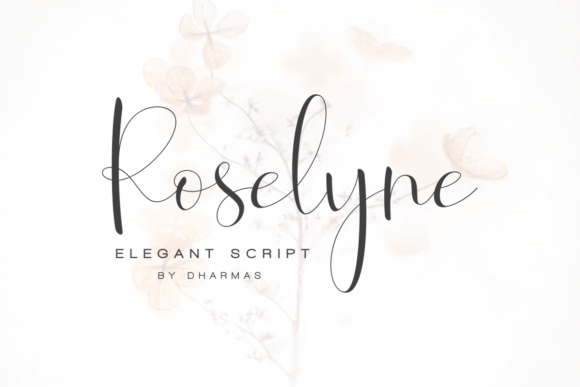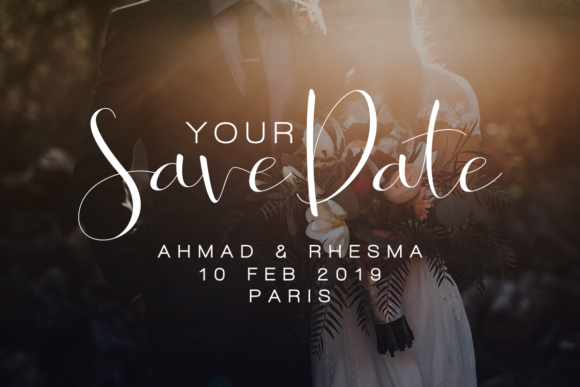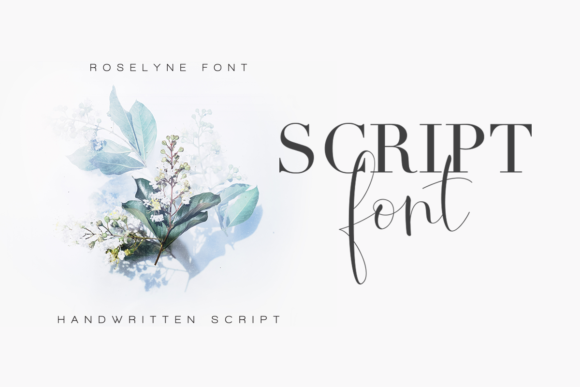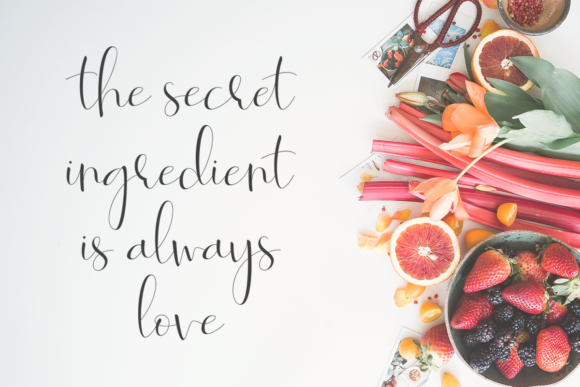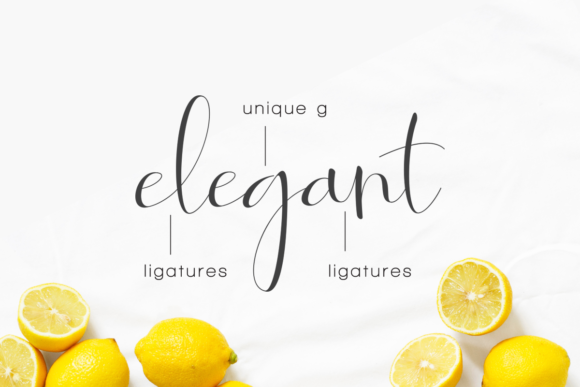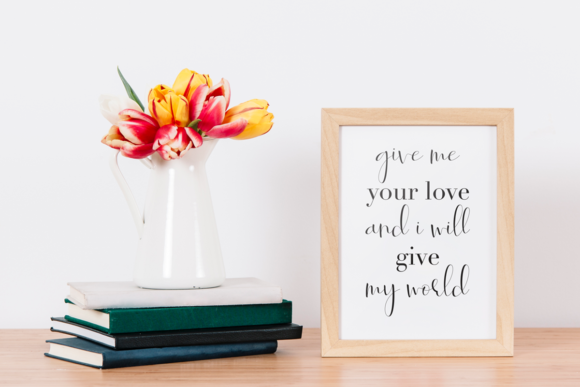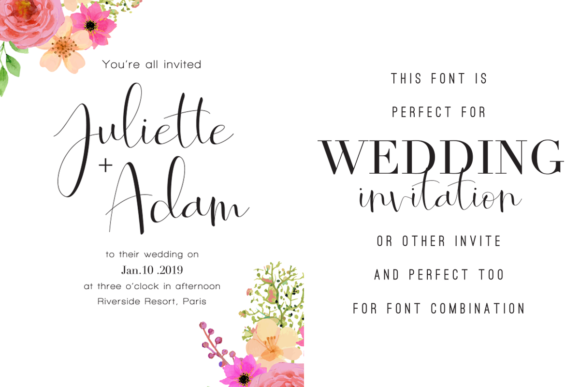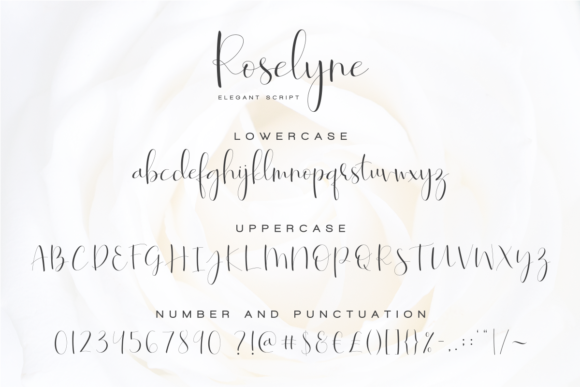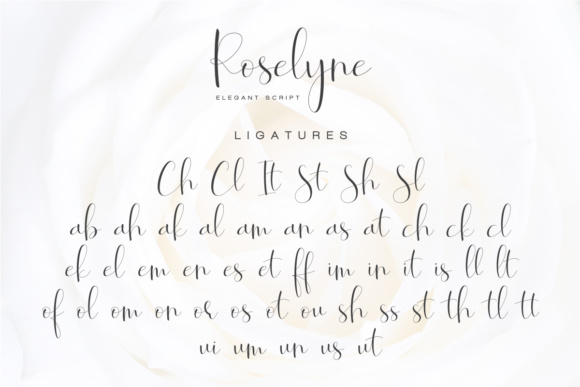
Roselyne Script Font
About Roselyne Script Font
Roselyne is a modern calligraphy font with handwritten, modern, sophisticated flows. It’s perfect for branding, wedding invites, greeting cards and much more!
For those of you who need a touch of elegance and modernity to your designs, Roselyne is just what you need!